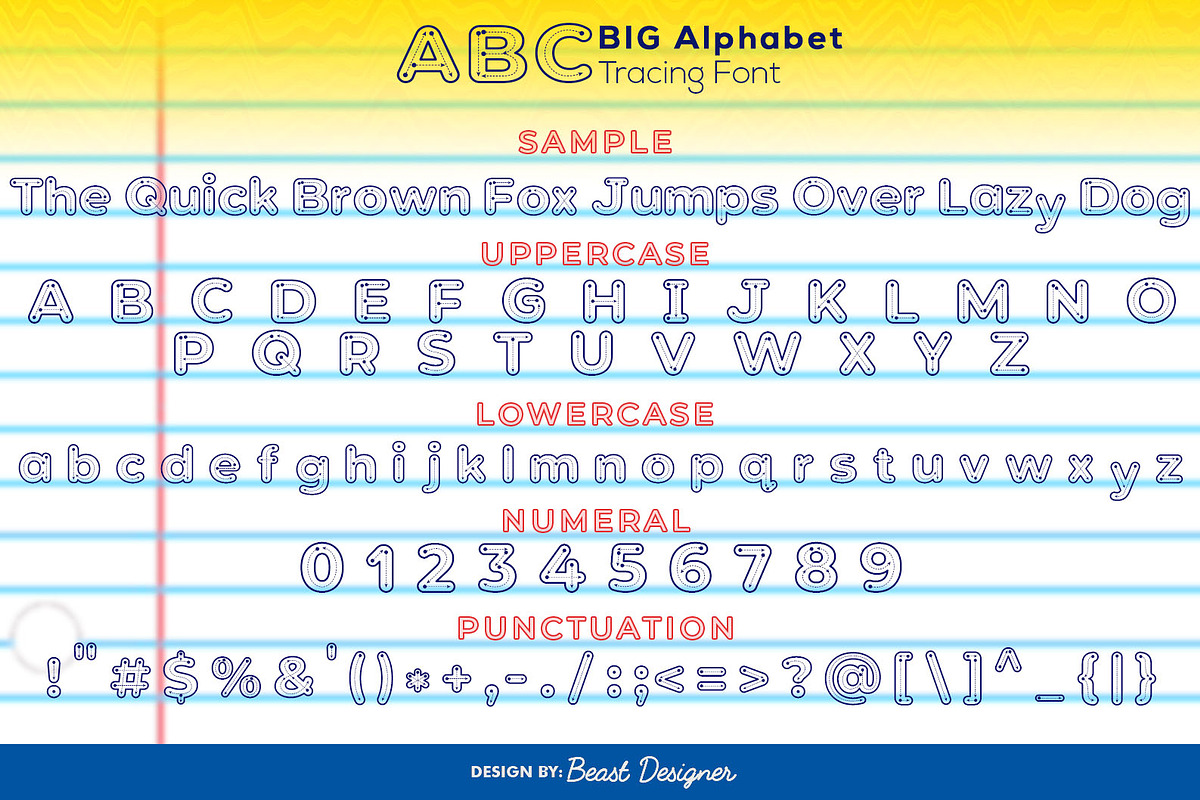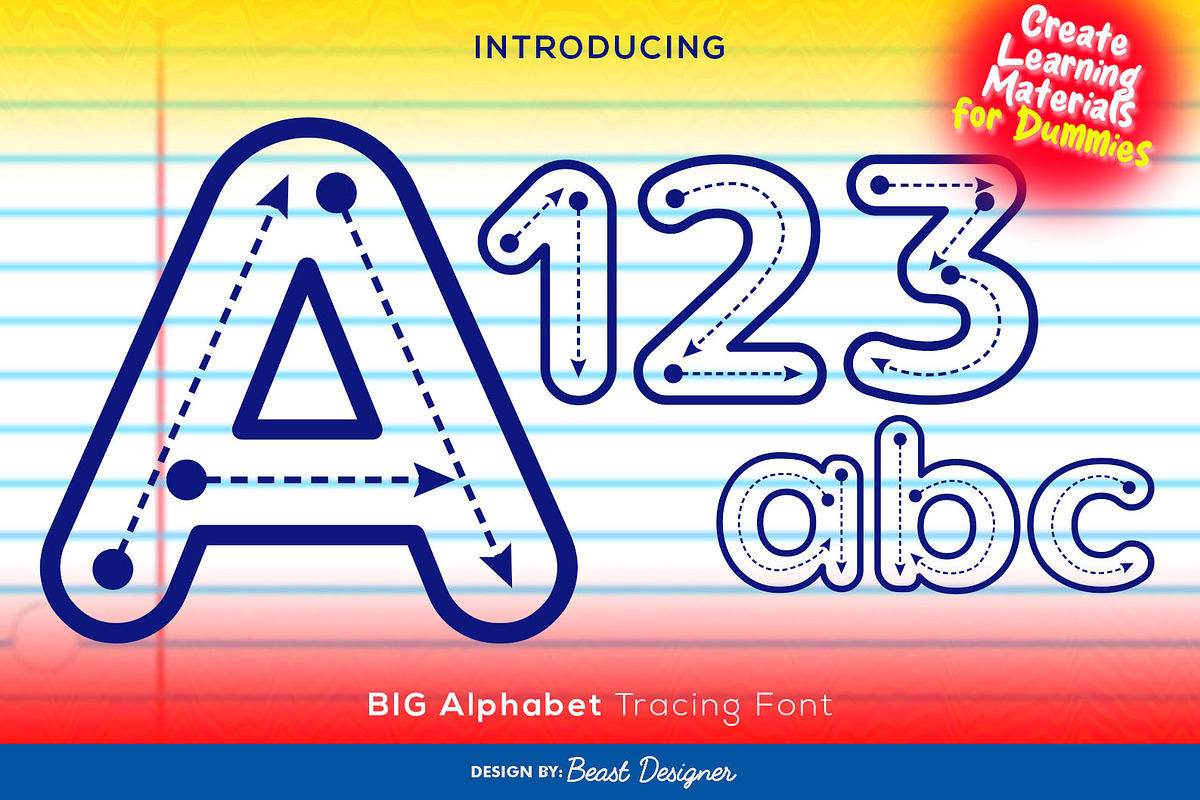
Big Alphabet Tracing
The Big Alphabet Tracing Font is a fun and engaging display font specifically designed to help young children learn the alphabet. Its playful and friendly aesthetic makes learning feel like a game, encouraging kids to practice their letter formation. Teachers and parents can use this font in educational materials, worksheets, and activities to make the alphabet learning process more enjoyable and effective.